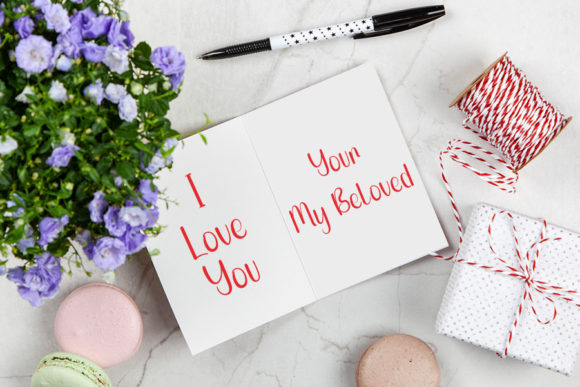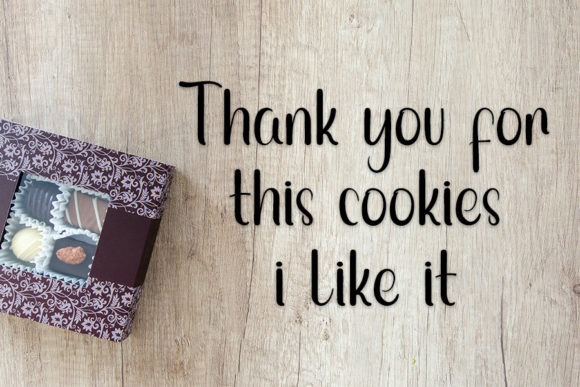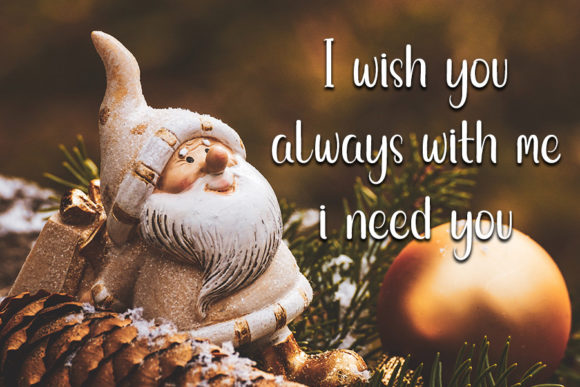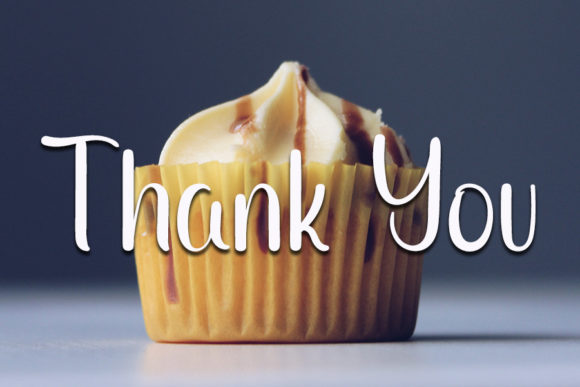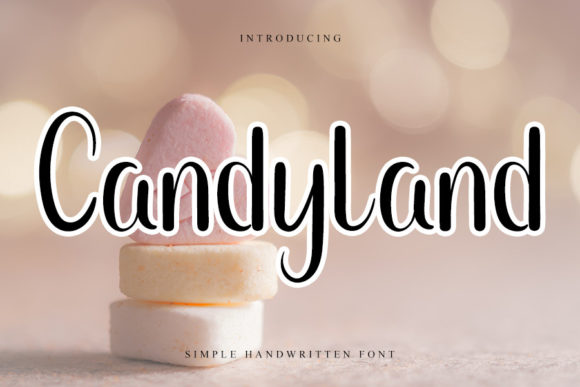
Candyland Font: Elevate Your Designs with a Touch of Timeless Elegance
In the realm of typography, few fonts manage to capture the essence of both classic sophistication and modern flair. The Candyland Font, however, stands out as a shining example of a stylish handwritten font that brings a contemporary atmosphere and impeccable form to the table. Inspired by timeless classic calligraphy, Candyland Font offers designers and crafters a unique opportunity to infuse their projects with a balanced and varied typographic elegance.
The Inspiration Behind Candyland Font
Candyland Font draws its inspiration from the traditional art of calligraphy, a centuries-old practice that emphasizes beautiful handwriting and artistic lettering. The creators of Candyland Font have skillfully blended the fluidity and expressiveness of classic calligraphy with modern design sensibilities. The result is a font that not only pays homage to the past but also meets the demands of contemporary design.
Key Features of Candyland Font
• Stylish Handwritten Appearance: Candyland Font boasts a stylish, handwritten look that adds a personal touch to any project. Its elegant strokes and carefully crafted letterforms make it perfect for designs that require a touch of sophistication.
• Contemporary Atmosphere: Despite its classic inspiration, Candyland Font exudes a contemporary vibe that makes it suitable for a wide range of modern applications, from branding and advertising to digital media and packaging.
• Impeccable Form: The font’s design focuses on impeccable form, ensuring that each letter and character is meticulously crafted to contribute to the overall aesthetic of the text.
• Balanced and Varied: One of the standout features of Candyland Font is its balanced and varied design. The font includes a range of characters, ensuring that text remains engaging and visually appealing.
Applications of Candyland Font
Candyland Font’s versatility makes it an excellent choice for a variety of design projects. Here are some of the areas where this font truly shines:
• Branding and Logos: The unique, stylish appearance of Candyland Font makes it ideal for branding and logo design. It can help create a memorable and distinctive identity for businesses and products.
• Stationery and Invitations: For designers and crafters working on stationery, invitations, or greeting cards, Candyland Font offers a sophisticated and elegant solution.
• Digital Media: In the realm of digital media, including websites, social media graphics, and video content, Candyland Font can add a touch of class and refinement.
• Packaging: The font’s contemporary yet timeless appeal makes it suitable for product packaging, helping brands stand out on store shelves.
Why Choose Candyland Font?
Choosing Candyland Font for your design projects comes with several advantages:
• Unique Aesthetic: Candyland Font offers a distinctive look that can set your designs apart from the crowd.
• Versatility: Its versatility across different design applications makes it a valuable addition to any designer’s toolkit.
• Timeless Appeal: The font’s classic inspiration ensures that it will remain stylish and relevant for years to come.
Candyland Font represents a perfect blend of classic elegance and modern design. Its stylish handwritten appearance, contemporary atmosphere, and impeccable form make it an excellent choice for designers and crafters looking to elevate their projects. Whether you’re working on branding, stationery, digital media, or packaging, Candyland Font offers a versatile and timeless solution that can help you achieve your design goals with style and sophistication.